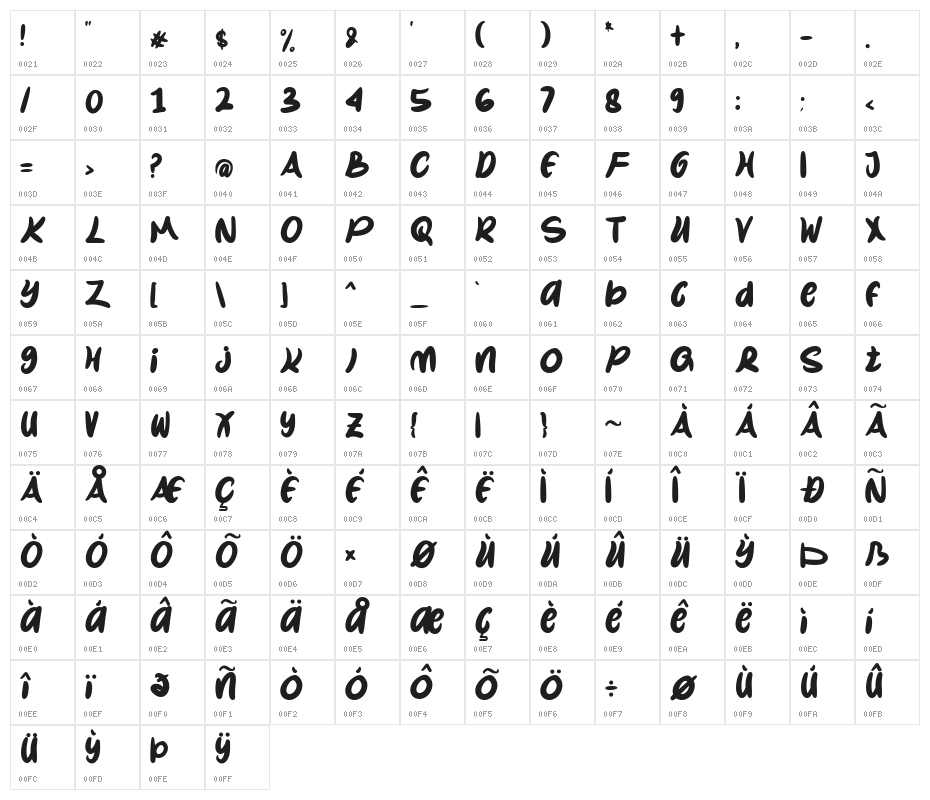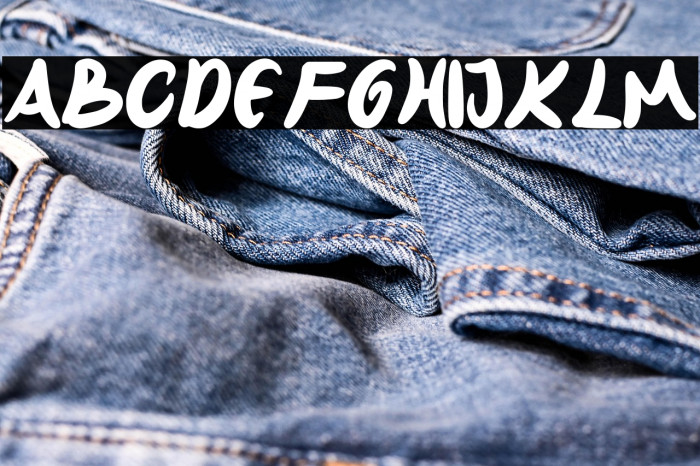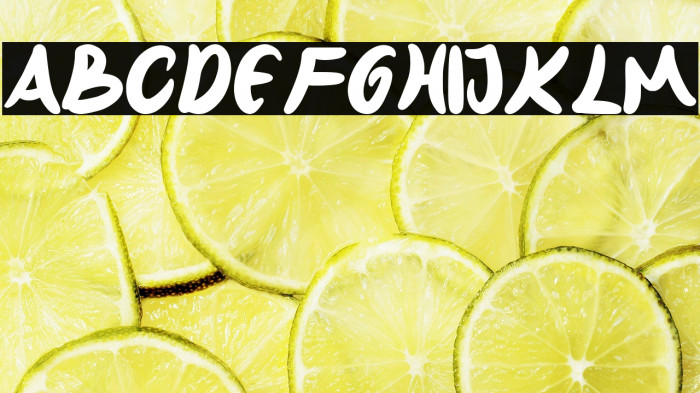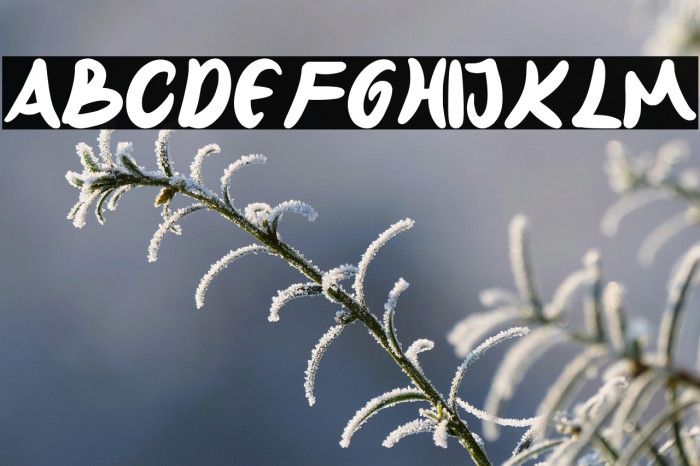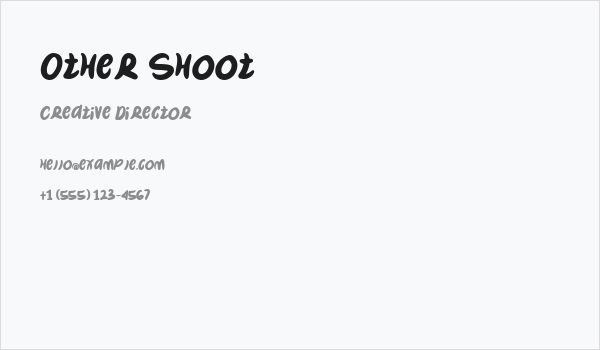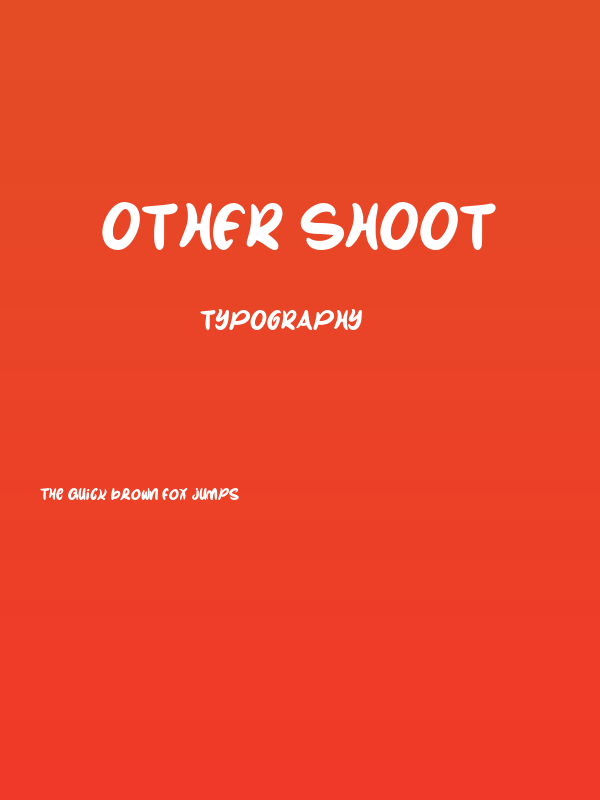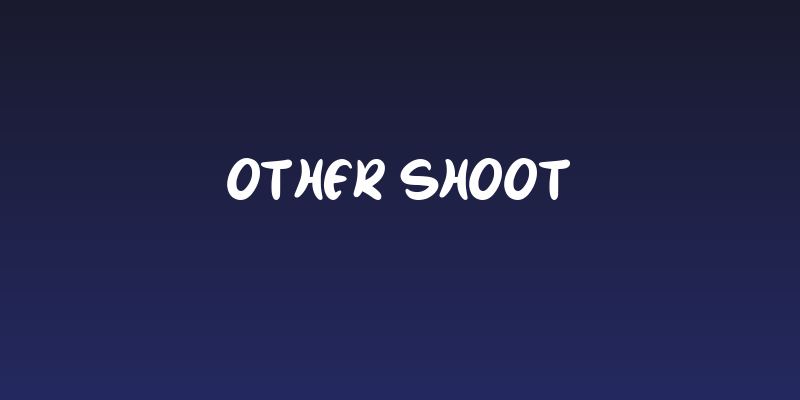
Other Shoot Font
Other Shoot Description
This font features a bold, playful style with a handwritten appearance. The characters are rounded and slightly slanted, giving it a casual and friendly vibe. The uppercase and lowercase letters maintain a consistent flow, with the strokes being thick and uniform. The numbers and special characters follow the same design principles, ensuring a cohesive look across all elements. This font is ideal for projects that require a fun and approachable aesthetic, such as children's books, playful branding, or casual invitations.
| Overall Style | Playful, Casual |
| Proposed Projects | Children's books, playful branding, casual invitations, posters, and social media graphics. |